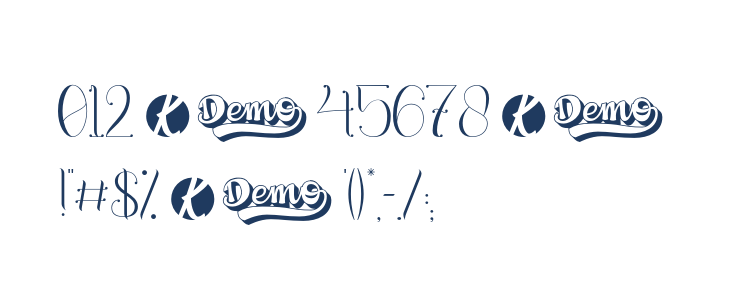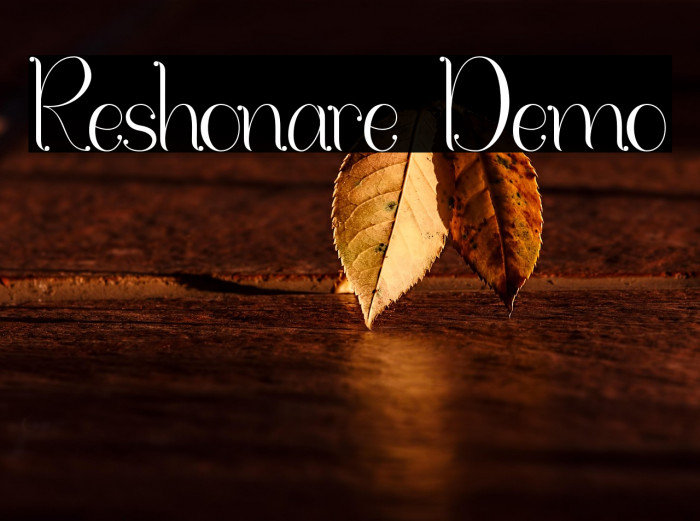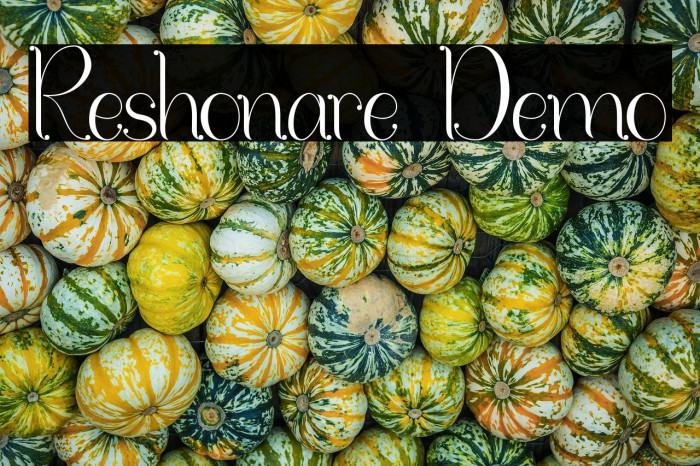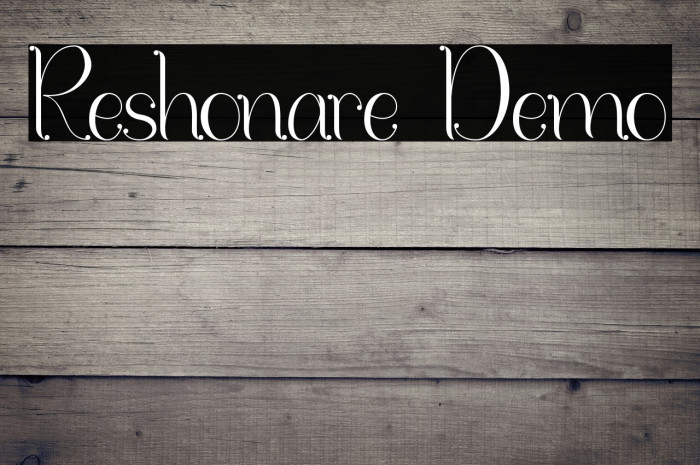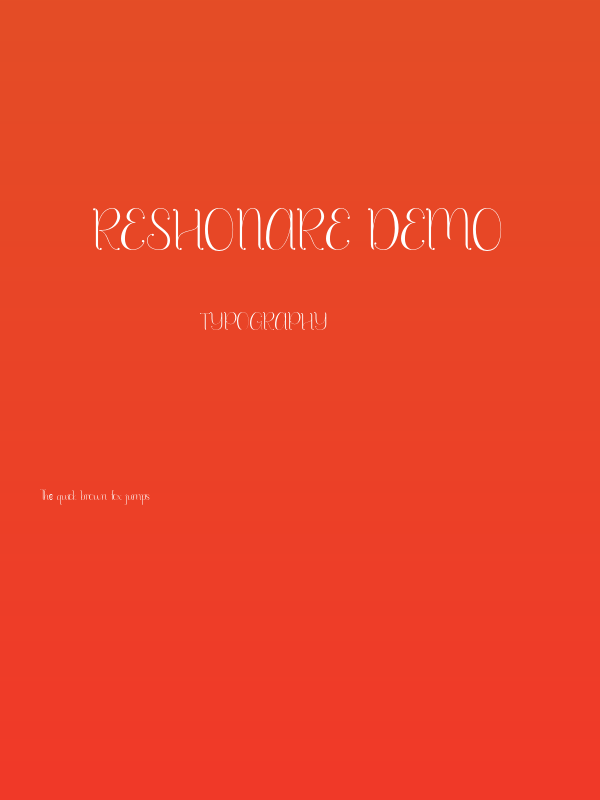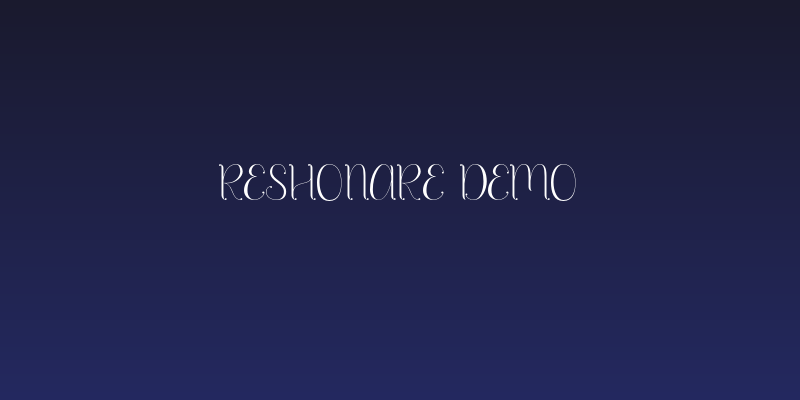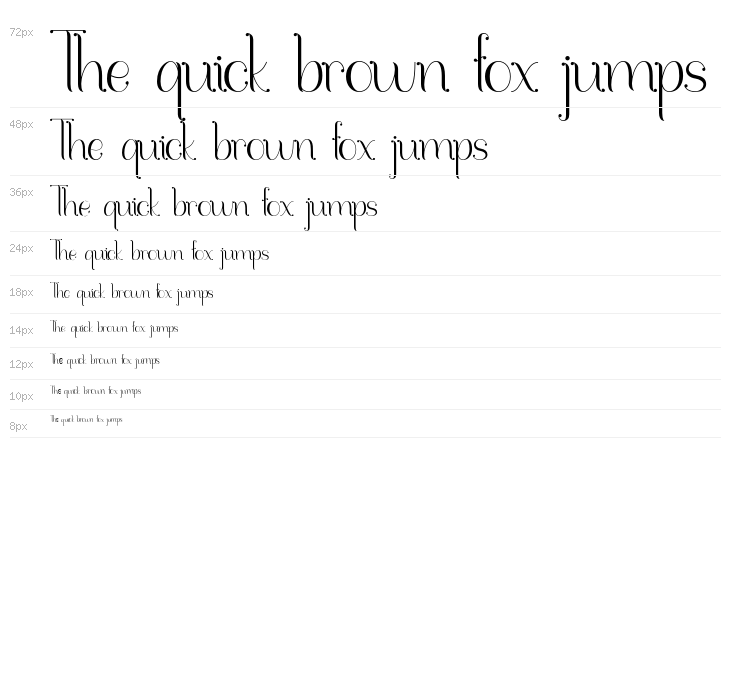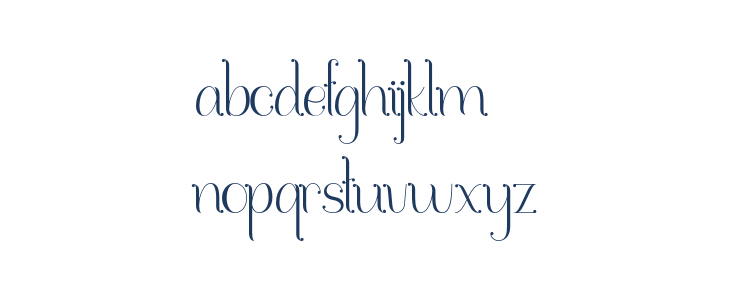
Reshonare Demo Font
Reshonare Demo Description
This font features an elegant and decorative style with a unique blend of thin and thick strokes, creating a whimsical and artistic appearance. The uppercase letters are characterized by their flowing curves and intricate details, while the lowercase letters maintain a consistent and harmonious design. The numerals and special characters are equally stylized, adding to the overall charm of the font. The use of dots and swirls in certain characters enhances its decorative appeal, making it suitable for creative and expressive projects.